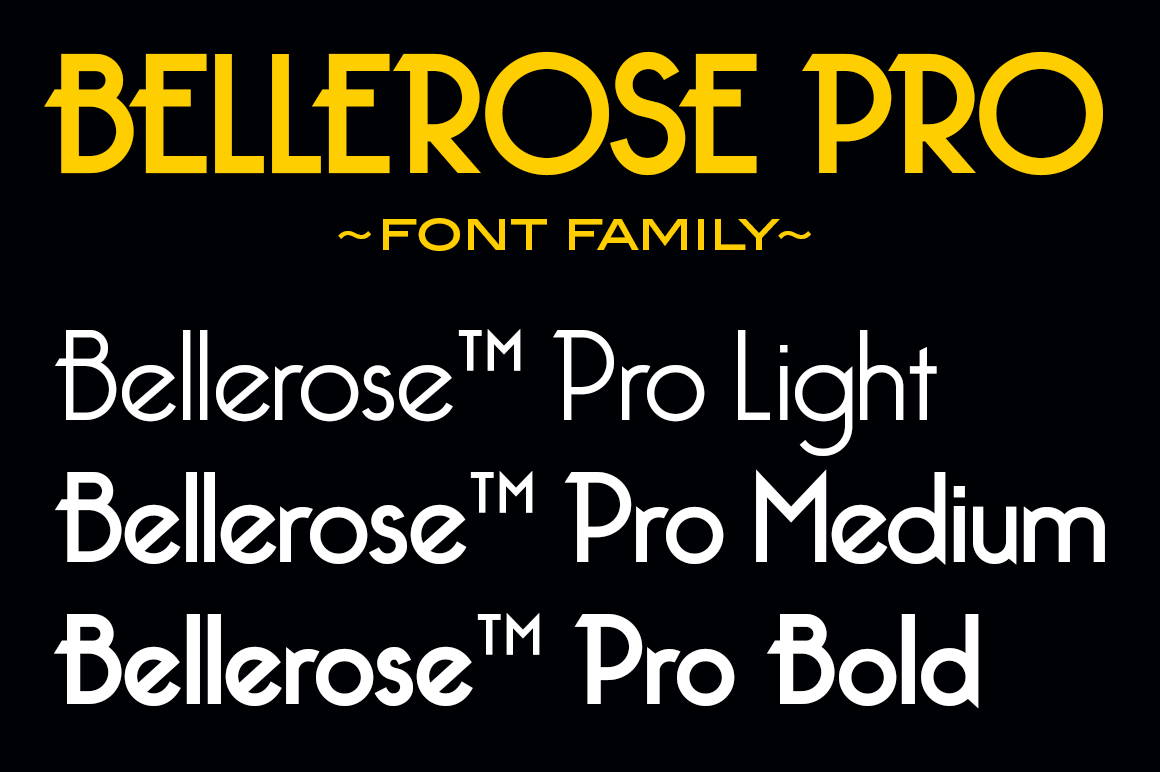
Bellerose Pro Font Family
The Bellerose Pro font family includes the Bellerose Pro Light, Medium, and Bold typefaces in one convenient family. The Bellerose Pro fonts are used worldwide by design agencies for their projects. Bellerose is used by Guccio Gucci SpA, Mattel Inc., the Shire of Esperance (western Australia), and many others. Bellerose Pro was used by Illumination Entertainment for the movie "Sing 2".